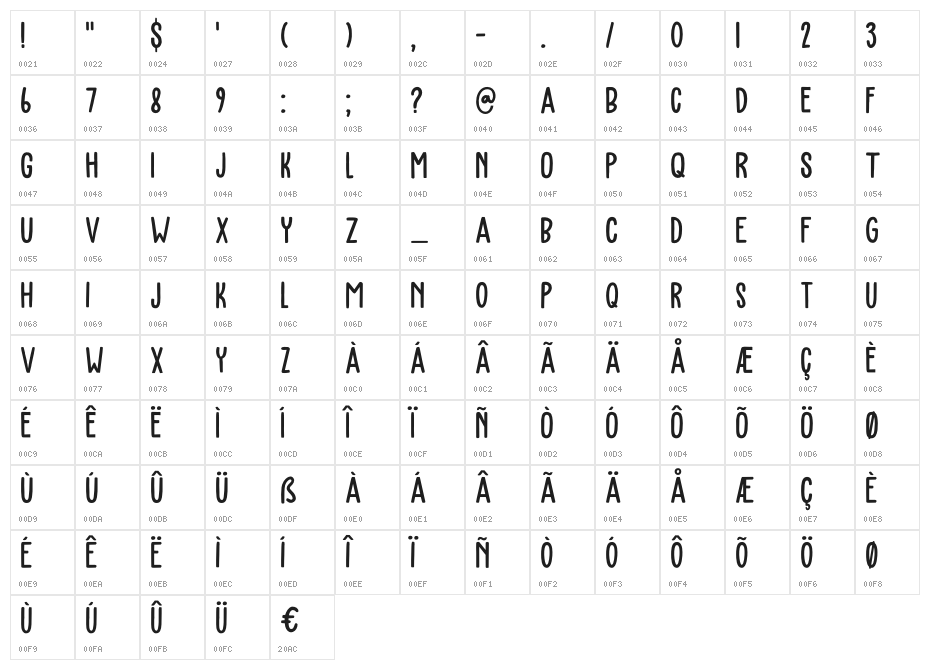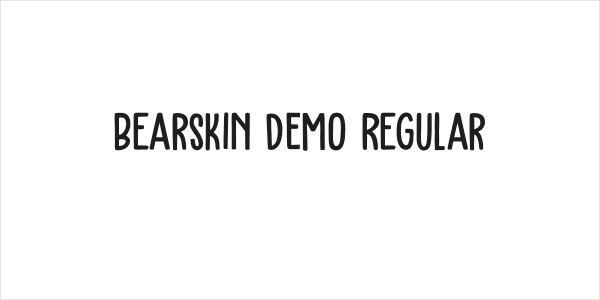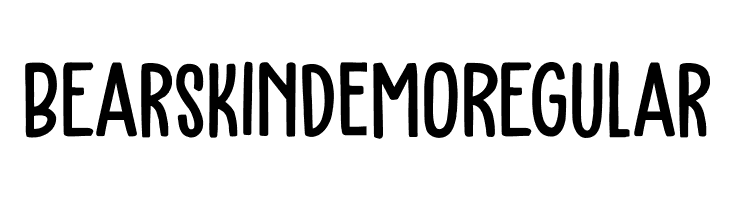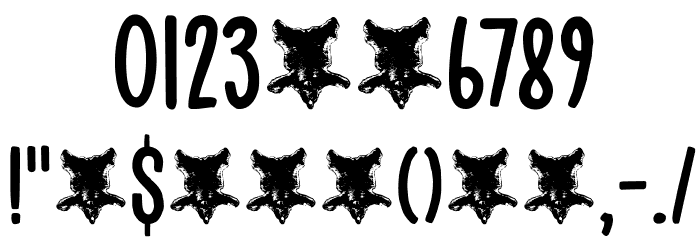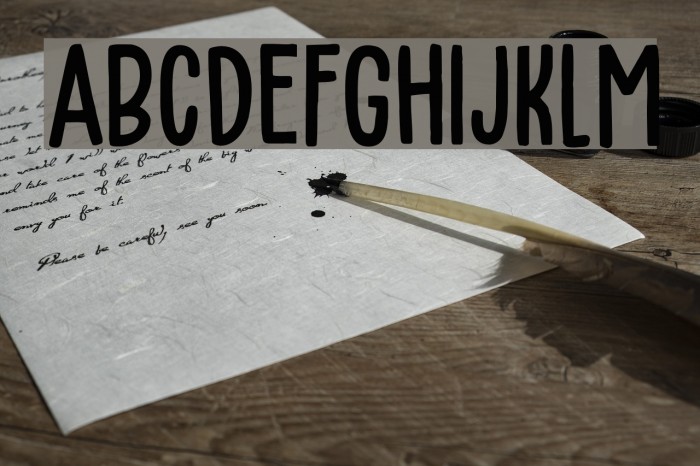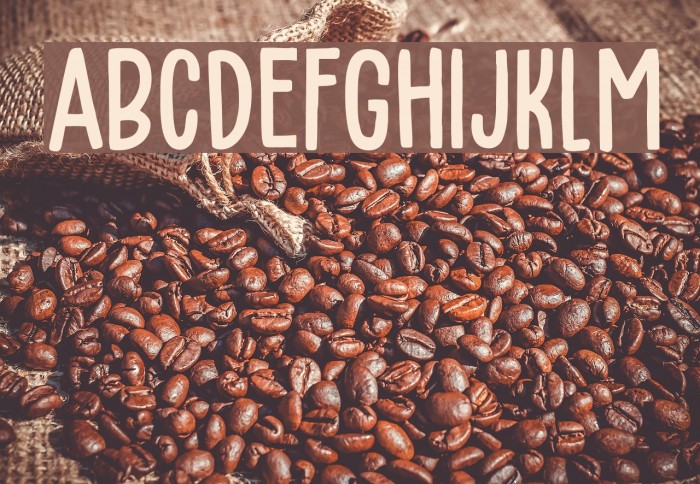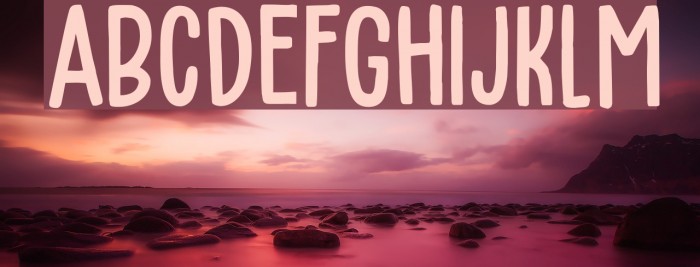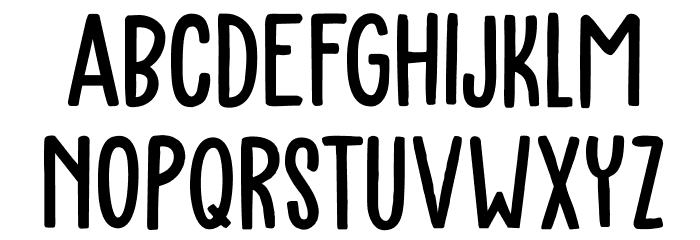
Bearskin DEMO Regular Font
Bearskin DEMO Regular Description
This font features a bold, hand-drawn style with a playful and slightly rustic appearance. The characters are tall and narrow, with rounded edges that give them a friendly and approachable look. The uppercase and lowercase letters maintain a consistent style, while the numbers and special characters blend seamlessly with the overall design. The font's unique bear-shaped glyphs add a whimsical touch, making it stand out for creative projects. Its boldness ensures readability, while the hand-crafted feel adds a personal touch.